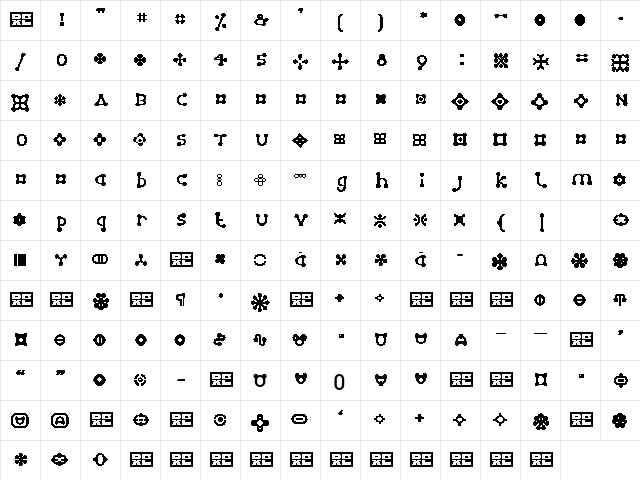
Atomium-Dingbats Regular
| Foundry | FSI Fonts und Software GmbH |
| Designer | Donald Beekman |
Design Context for Atomium-Dingbats Typeface
Atomium-Dingbats is a composed and adaptable typeface that performs quietly and consistently across a wide range of design contexts.